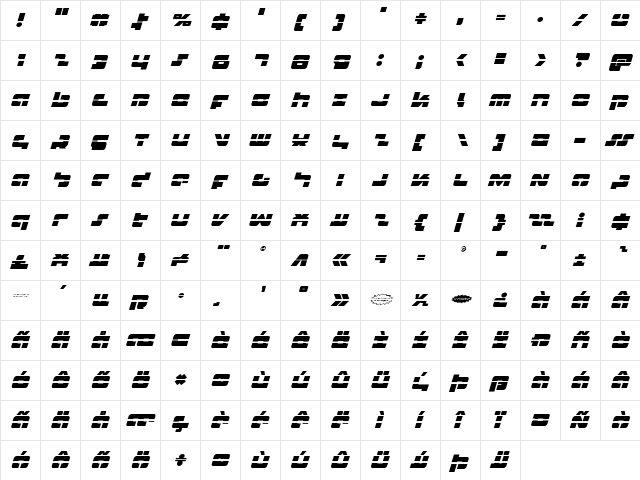
Boomstick Laser Italic Italic
Design Context for Boomstick Laser Italic Typeface
Boomstick Laser Italic is a composed and adaptable typeface that performs quietly and consistently across a wide range of design contexts. Its italic angle brings a sense of urgency and motion to the letterforms.
Pro Tip: Use Boomstick Laser Italic for emphasis, pull quotes, and subheadings where its slanted energy can add rhythm to the layout.